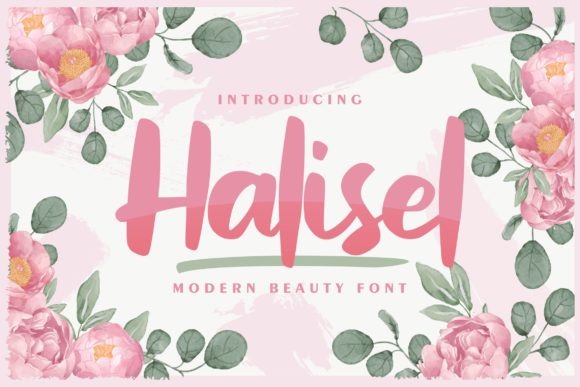
Halisel Font: The Perfect Choice for Children's Activities and School Projects
In the world of typography, fonts play a crucial role in conveying the tone and personality of a message. When it comes to children's activities and school projects, a font that embodies playfulness and authenticity is essential. This is where Halisel Font comes in – a cute and charming, thick lettered handwritten font that is perfect for any kid-related project.
What is Halisel Font?
Halisel Font is a unique and delightful typeface that is designed to bring a touch of playfulness and whimsy to any project. Its thick, handwritten letters are carefully crafted to create a sense of warmth and friendliness, making it an ideal choice for children's activities, school projects, and even personal use.
Characteristics of Halisel Font
So, what makes Halisel Font so special? Here are some of its key characteristics:
- Cute and charming: Halisel Font is designed to be adorable and captivating, making it perfect for projects that require a touch of playfulness.
- Thick lettered: The font features thick, bold letters that are easy to read and give a sense of confidence and friendliness.
- Handwritten: Halisel Font is a handwritten font, which gives it a personal and authentic touch.
- Playful: The font is designed to be playful and fun, making it perfect for children's activities and school projects.
- Authentic: Halisel Font has a genuine and sincere feel to it, which makes it perfect for projects that require a personal touch.
Uses of Halisel Font
Halisel Font is a versatile typeface that can be used in a variety of projects, including:
- Children's activities: Halisel Font is perfect for children's activity sheets, worksheets, and coloring books.
- School projects: The font is ideal for school projects, presentations, and reports.
- Personal use: Halisel Font can be used for personal projects, such as creating invitations, greeting cards, and certificates.
- Digital products: The font can be used in digital products, such as ebooks, printables, and educational resources.
Benefits of Using Halisel Font
So, why should you use Halisel Font for your project? Here are some benefits:
- Easy to read: Halisel Font is easy to read, even for young children.
- Fun and engaging: The font is designed to be fun and engaging, making it perfect for children's activities.
- Professional look: Despite its playful nature, Halisel Font has a professional look that is suitable for school projects and presentations.
- Customizable: The font can be customized to fit your specific needs, including changing the color, size, and style.
Tips for Using Halisel Font
Here are some tips for using Halisel Font effectively:
- Use it for headings: Halisel Font is perfect for headings and titles, as it adds a touch of playfulness and whimsy.
- Pair it with other fonts: The font can be paired with other fonts to create a unique and interesting combination.
- Experiment with colors: Halisel Font looks great in a variety of colors, so don't be afraid to experiment and find the perfect color for your project.
- Keep it simple: While Halisel Font is playful and fun, it's best to keep your design simple and easy to read.
In conclusion, Halisel Font is a cute and charming, thick lettered handwritten font that is perfect for children's activities and school projects. Its playfulness and authenticity make it an ideal choice for any kid-related project. With its ease of use, customizability, and professional look, Halisel Font is a great addition to any project.